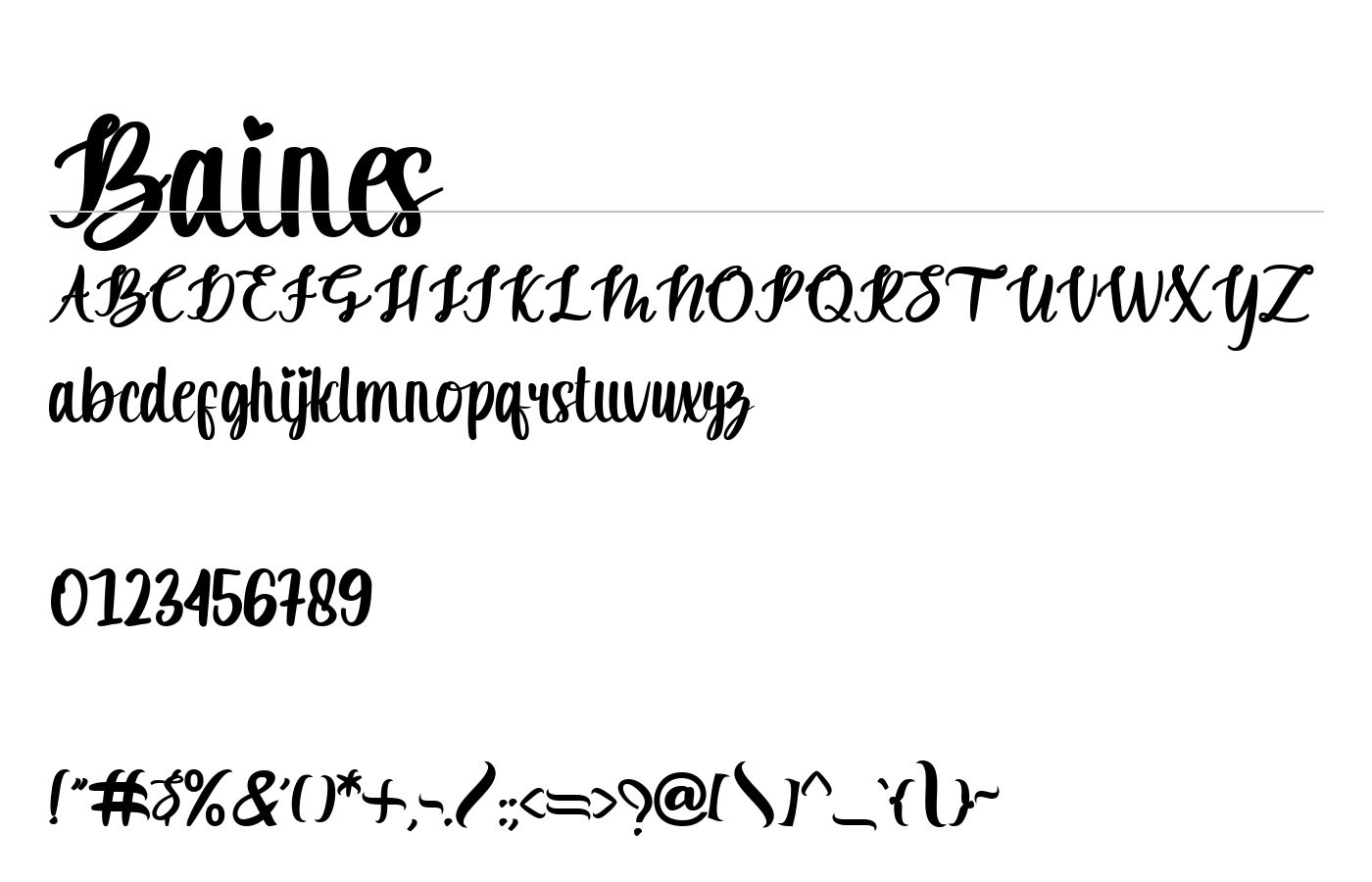
Baines is a charming script font with a playful yet elegant feel, featuring smooth, rounded strokes and a friendly personality. Its balanced letterforms and lively curves make it perfect for creative branding, invitations, and eye-catching headlines where a warm, handwritten touch is desired. This font works well in designs aiming for a stylish, approachable, and modern look.
Baines Font
About Baines Font
| Font family | Baines Font |
| Designer | Nomlimofont |